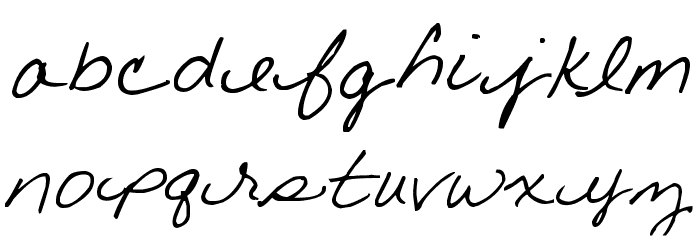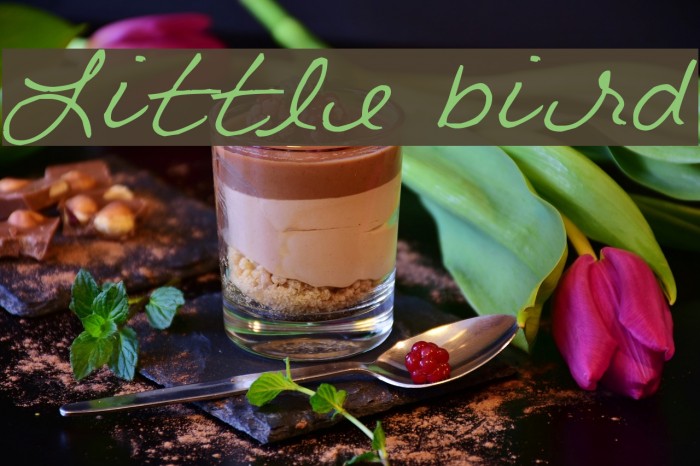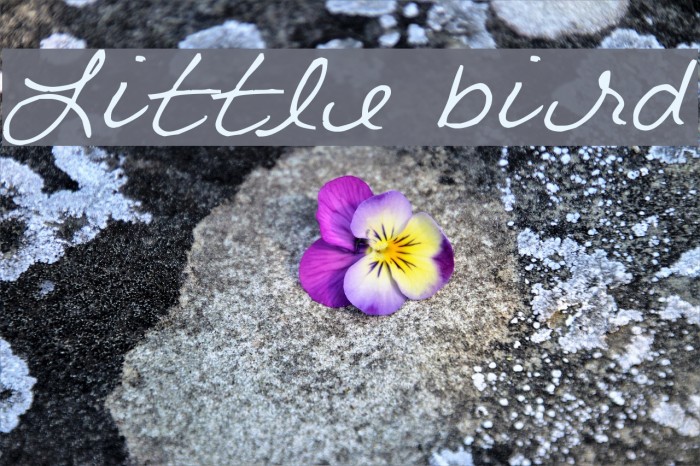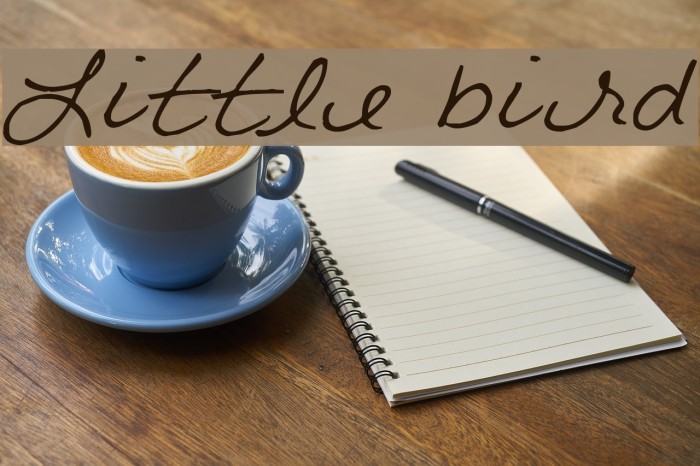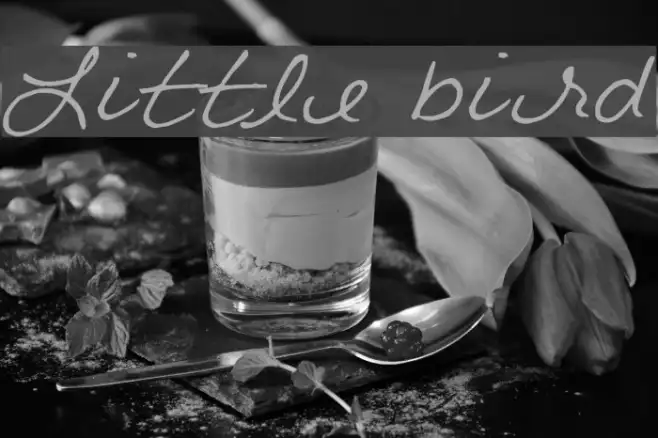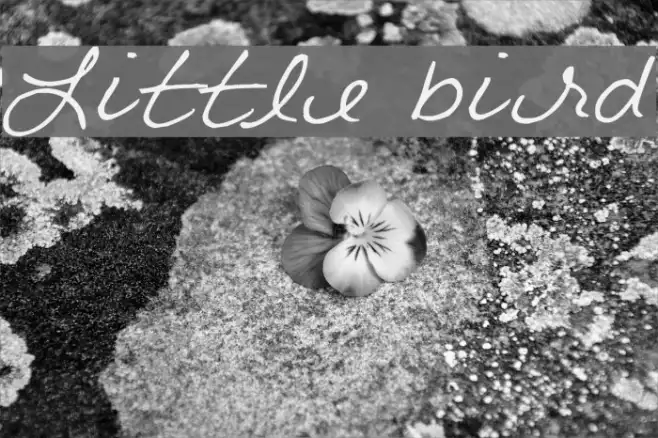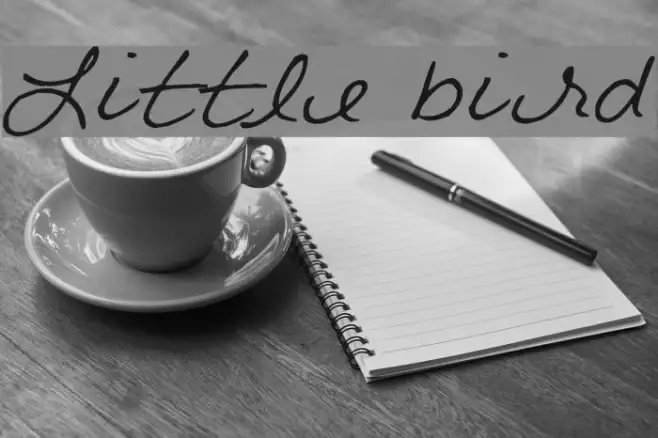
Little bird Font
This font exudes a casual, handwritten charm with its fluid and connected strokes, reminiscent of personal notes or letters. The uppercase letters maintain a consistent height, while the lowercase characters exhibit a playful bounce, adding to its informal appeal. The numerals are clear and legible, maintaining the same flowing style. Special characters are crafted with the same attention to detail, ensuring they blend seamlessly with the alphabet. The overall appearance is both approachable and stylish, making it suitable for projects that require a personal touch.
A casual, handwritten font with fluid, connected strokes and a playful bounce.
- Proposed Projects: Ideal for personal notes, invitations, greeting cards, and creative branding projects.
- Overall Style: Casual
- Use Case: Logos, Invitations, Greeting cards